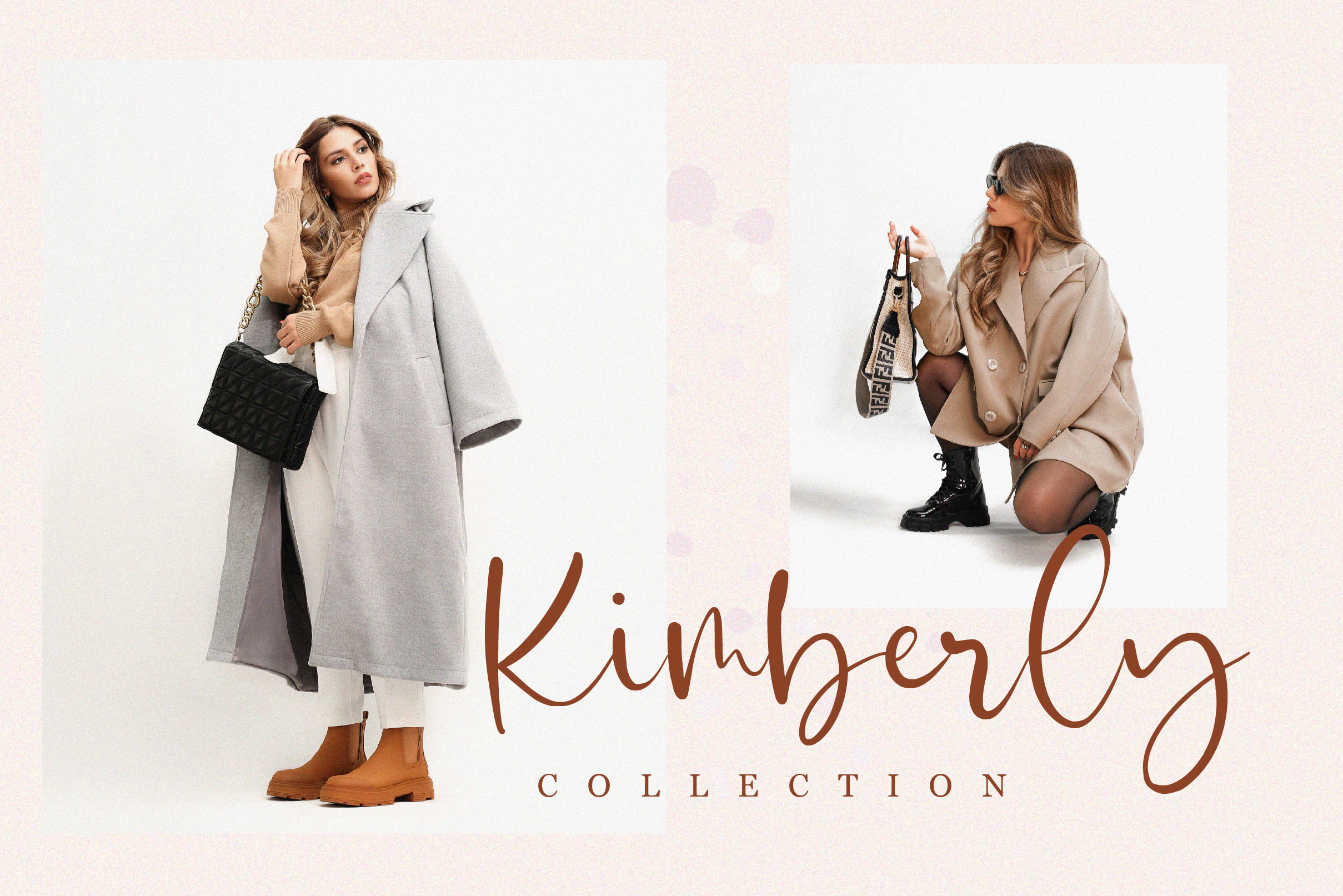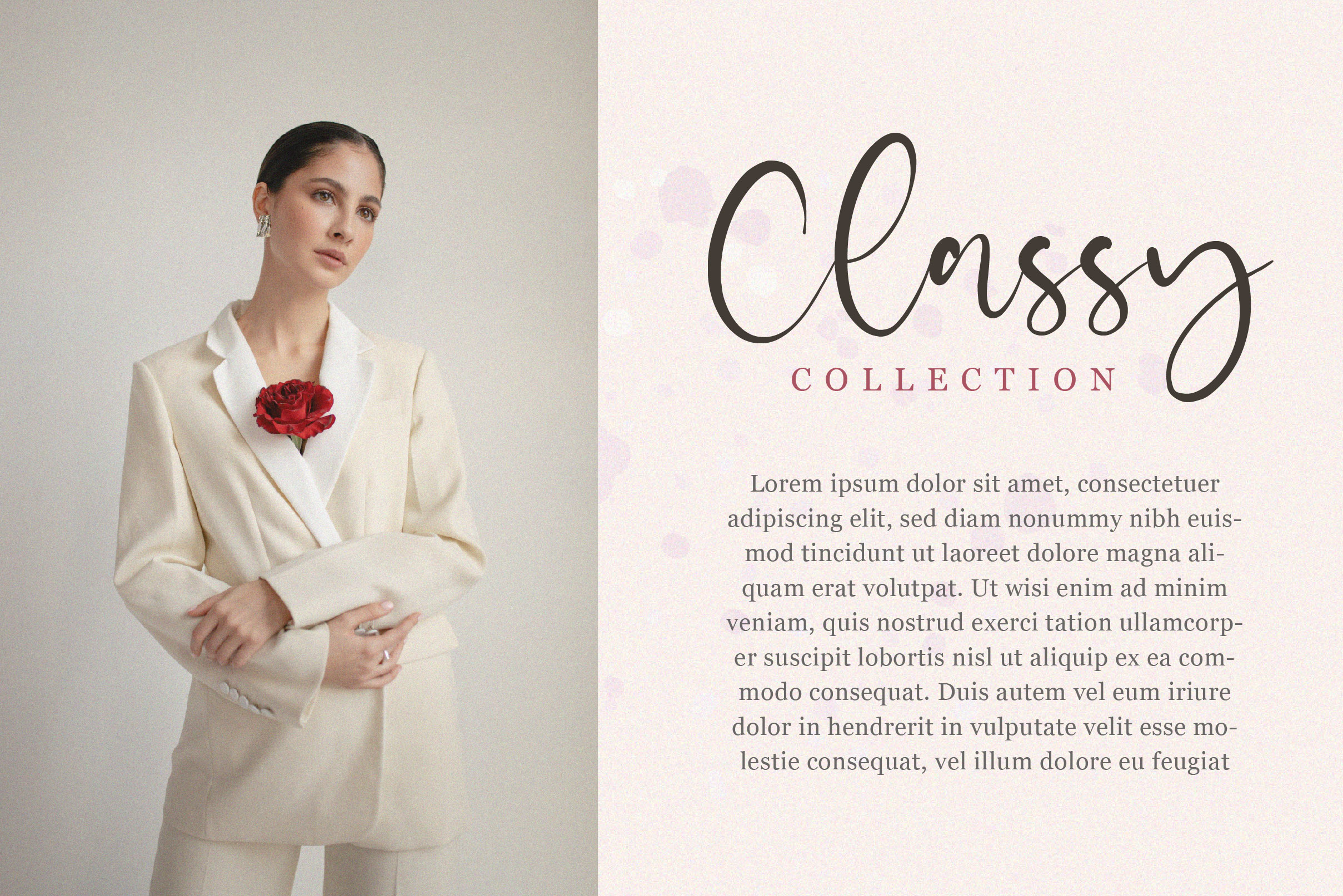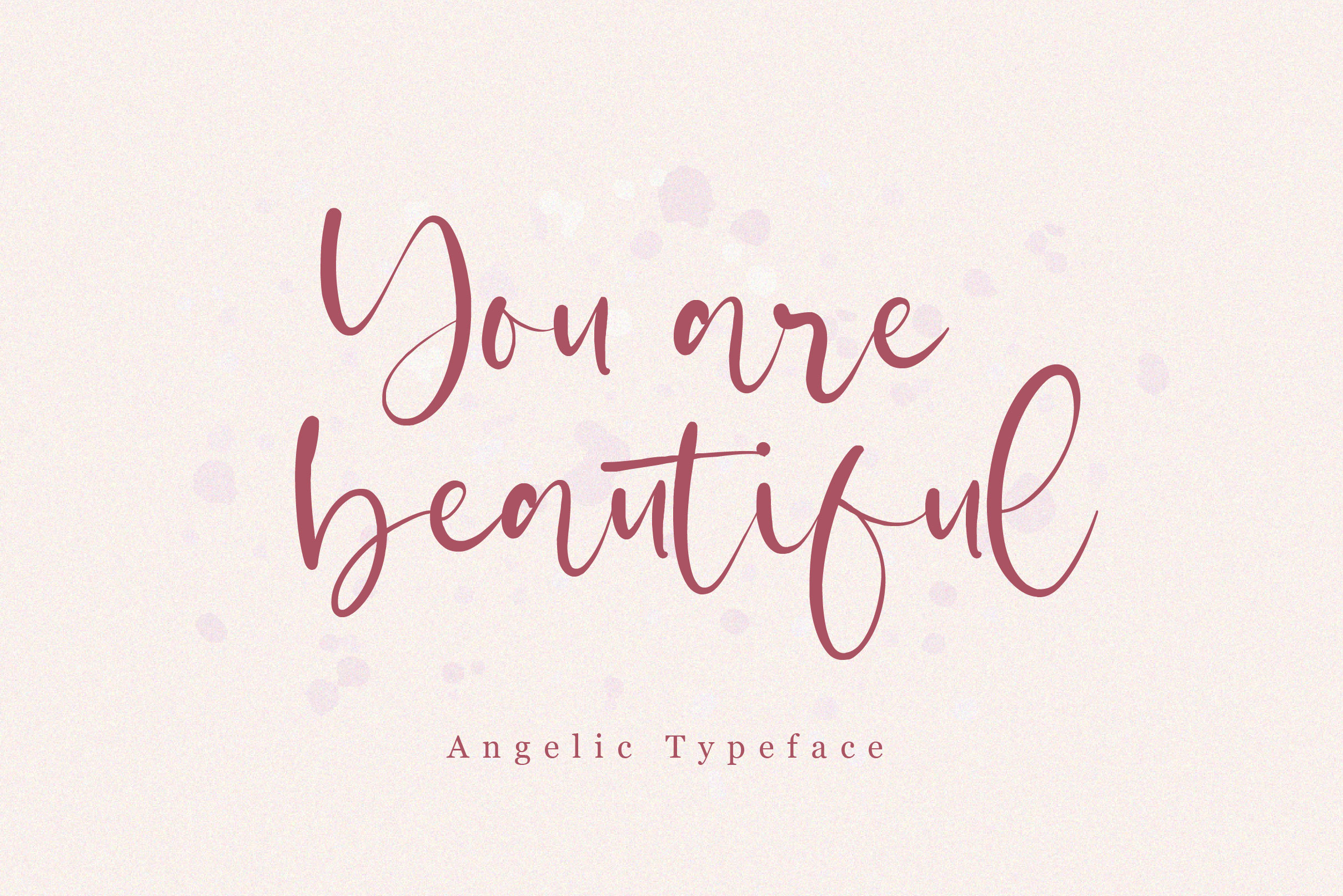
Angelic Font
Angelic Script Font is a beautiful modern script font that comes with both a clean and outlined version that gives this font an elegant and stylish vibe. This font is suitable for displays and projects that need a calligraphic feel.
– Uppercase, Lowercase, Numeral & Punctuation
– Alternate Letters, Ligature & Swash/Tail